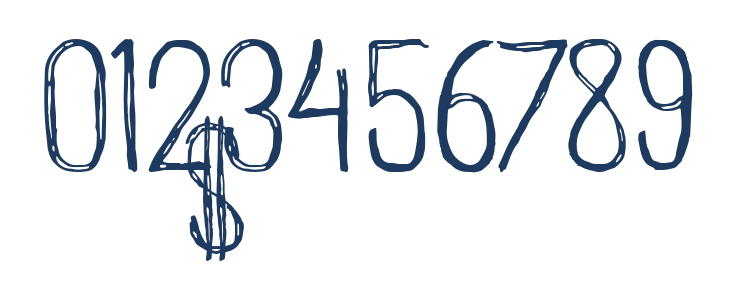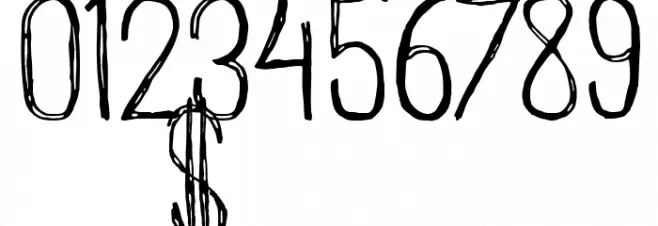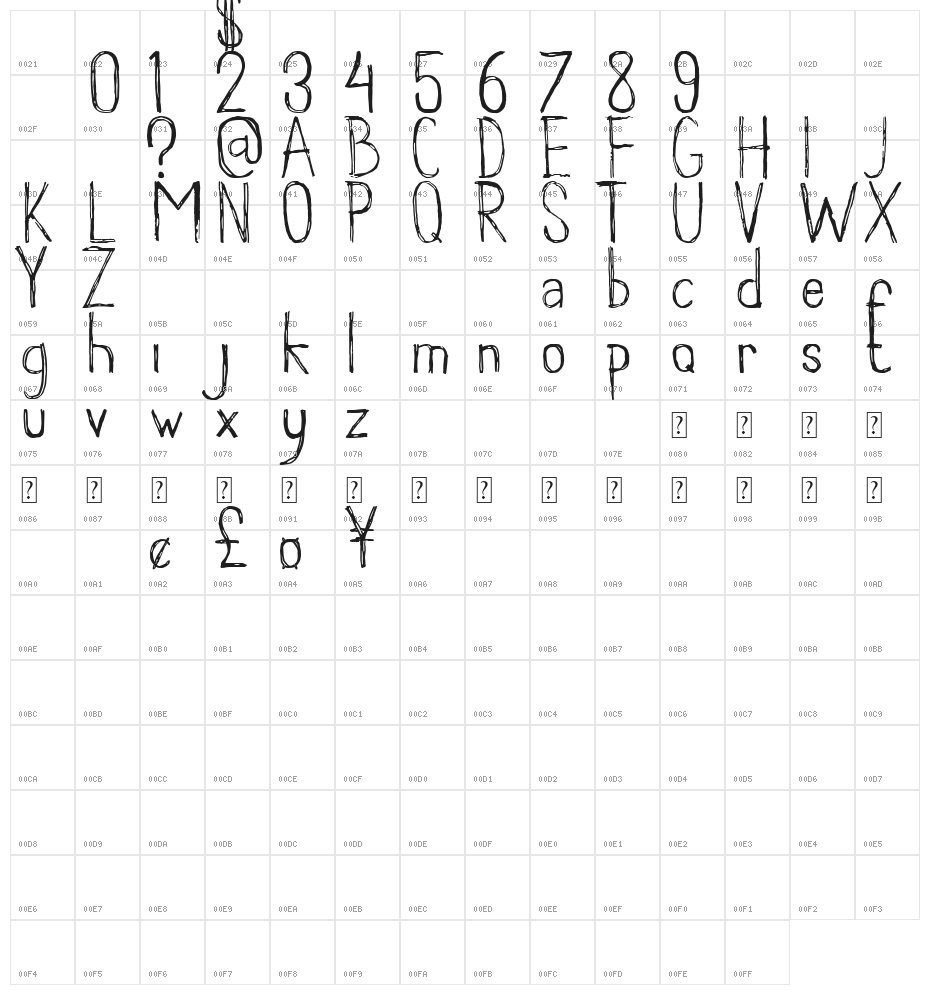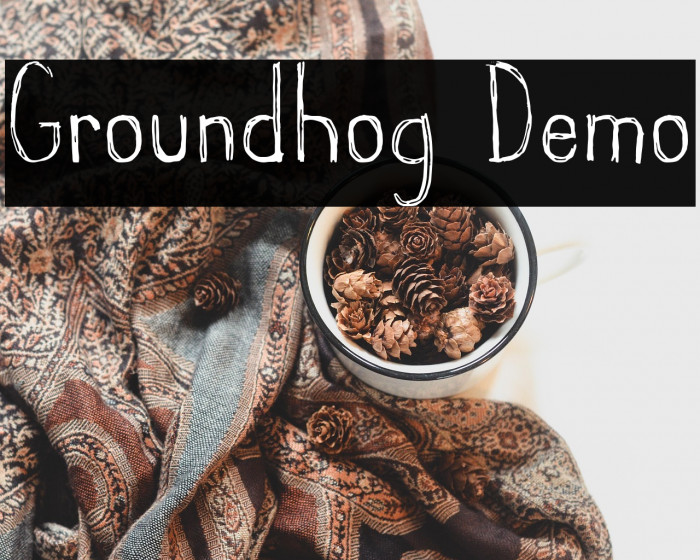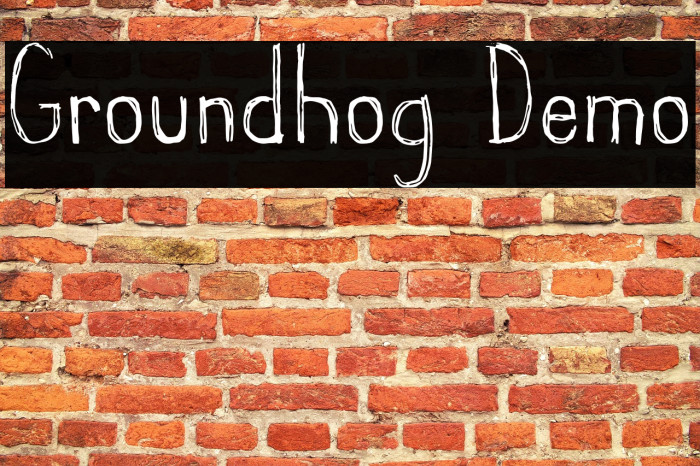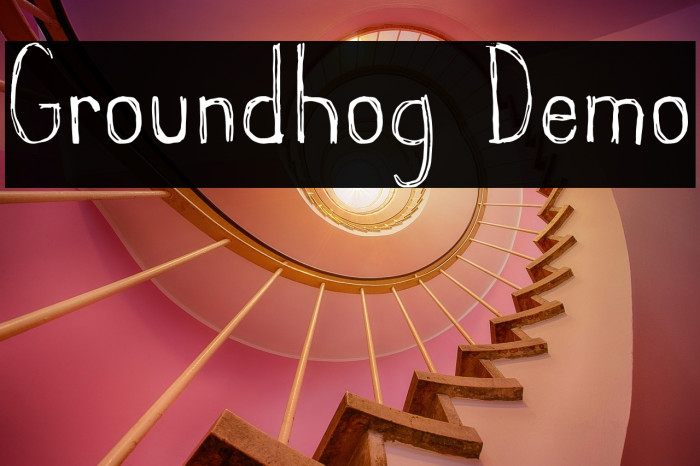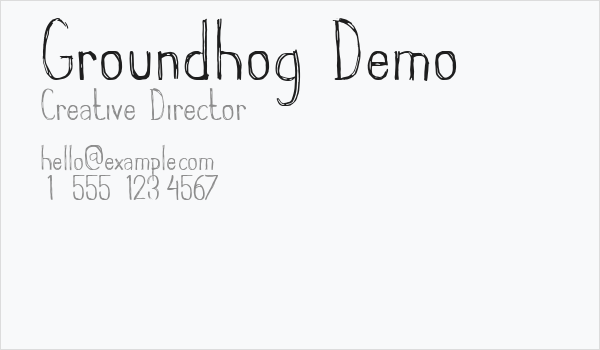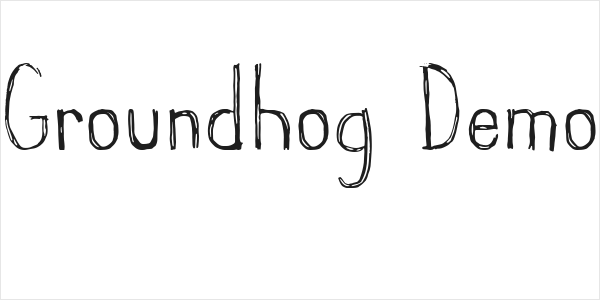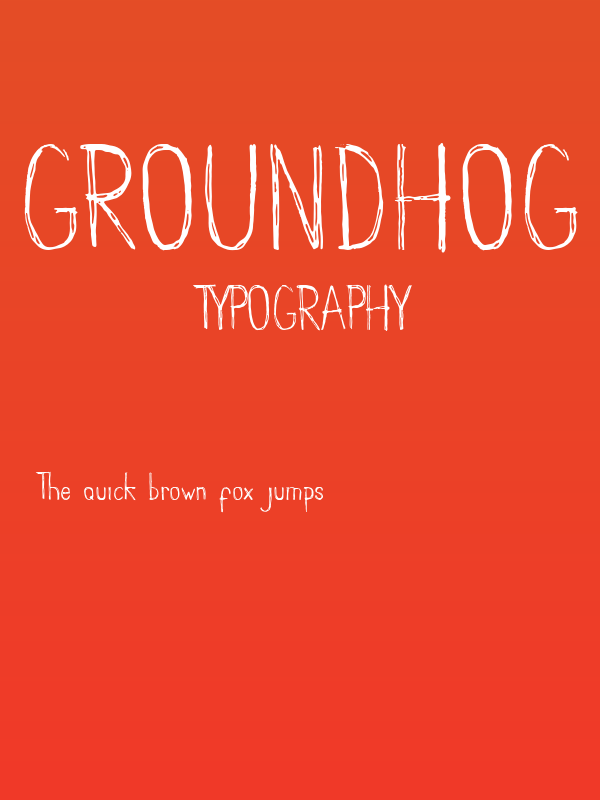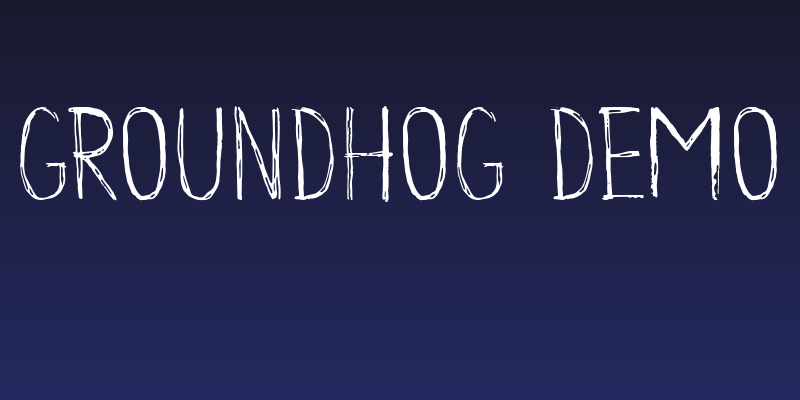
Groundhog Demo Font
Groundhog Demo Description
This font exhibits a unique, hand-drawn style with a rough, textured appearance. The characters are irregular and slightly distorted, giving them a whimsical and artistic feel. The uppercase letters are tall and narrow, while the lowercase letters maintain a consistent height with a playful, uneven baseline. The numbers are bold and prominent, matching the overall quirky aesthetic. Special characters are creatively integrated, maintaining the font's distinctive style. This font is perfect for projects that require a touch of creativity and individuality.
| Proposed Projects | Ideal for creative projects such as posters, album covers, children's books, and artistic branding. |